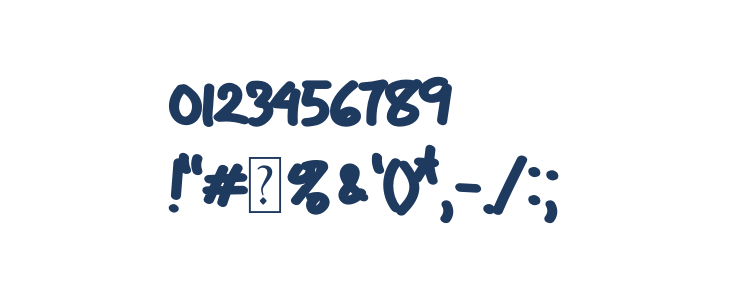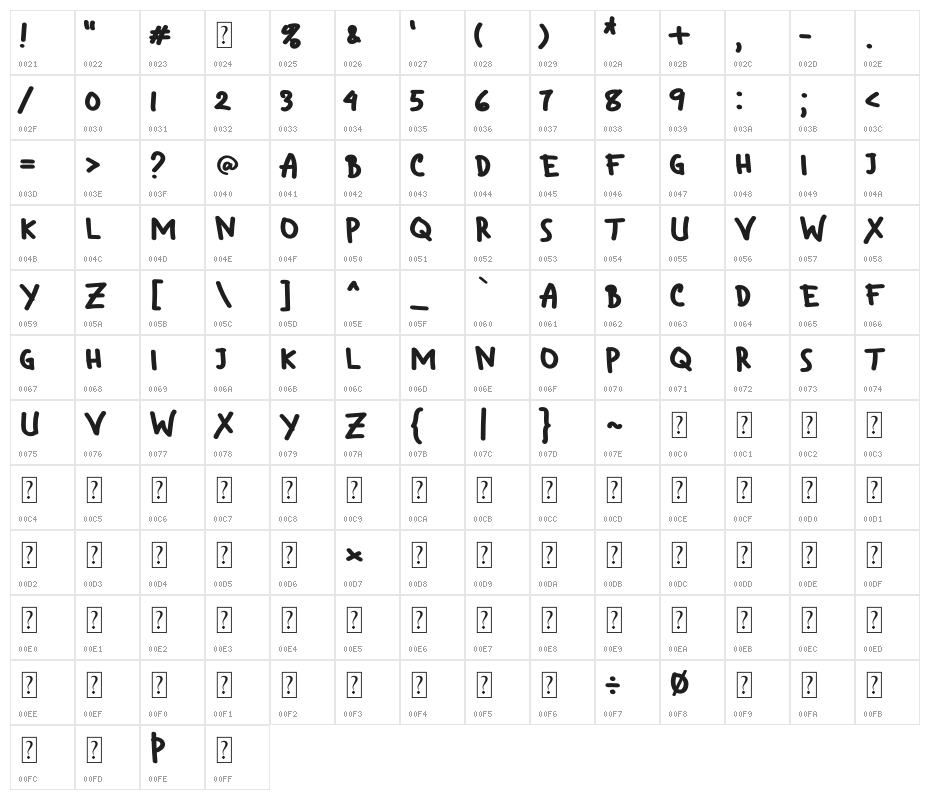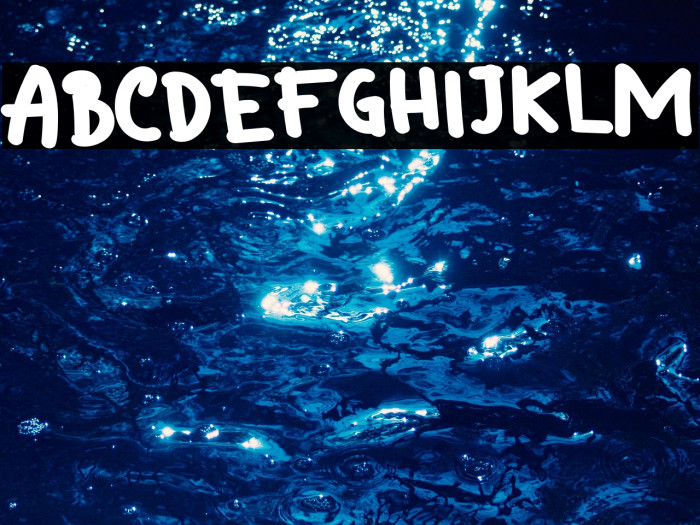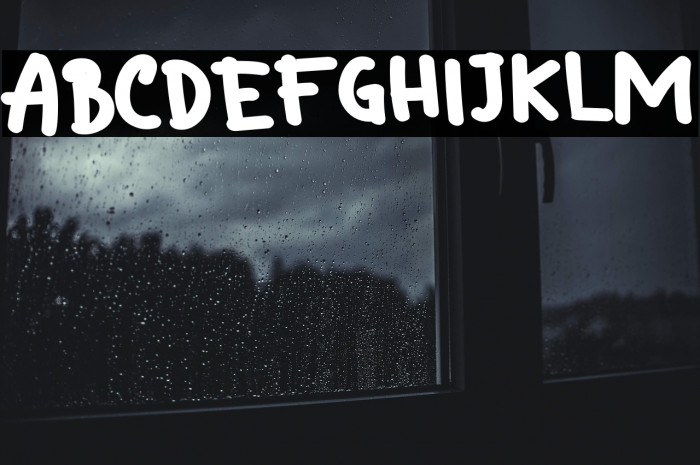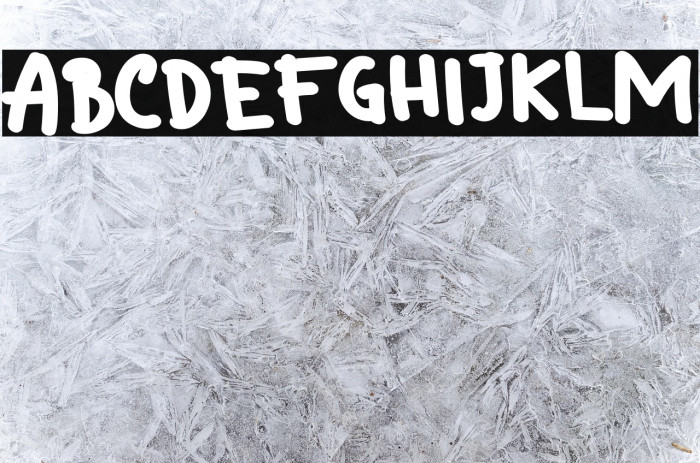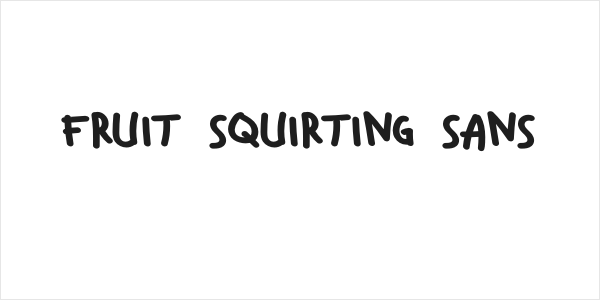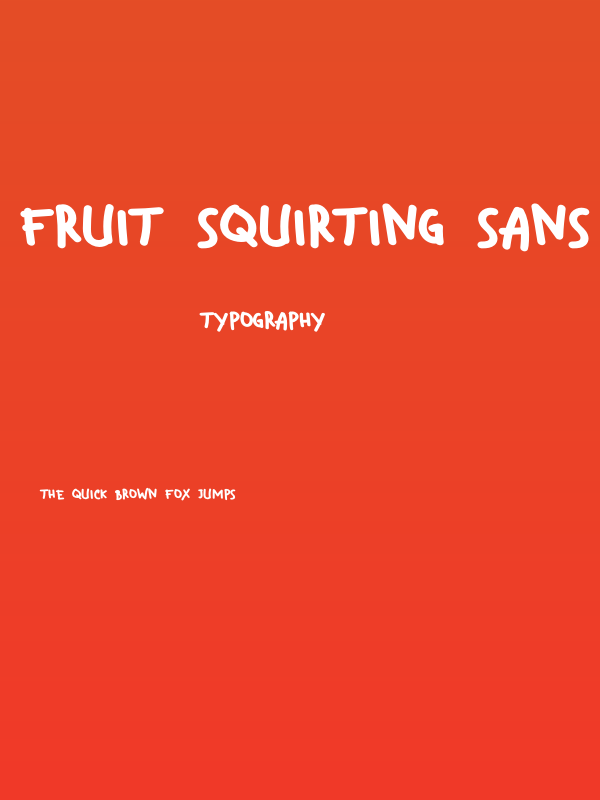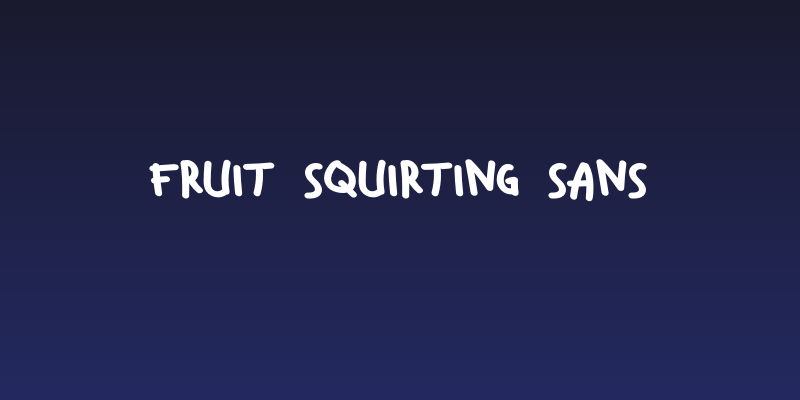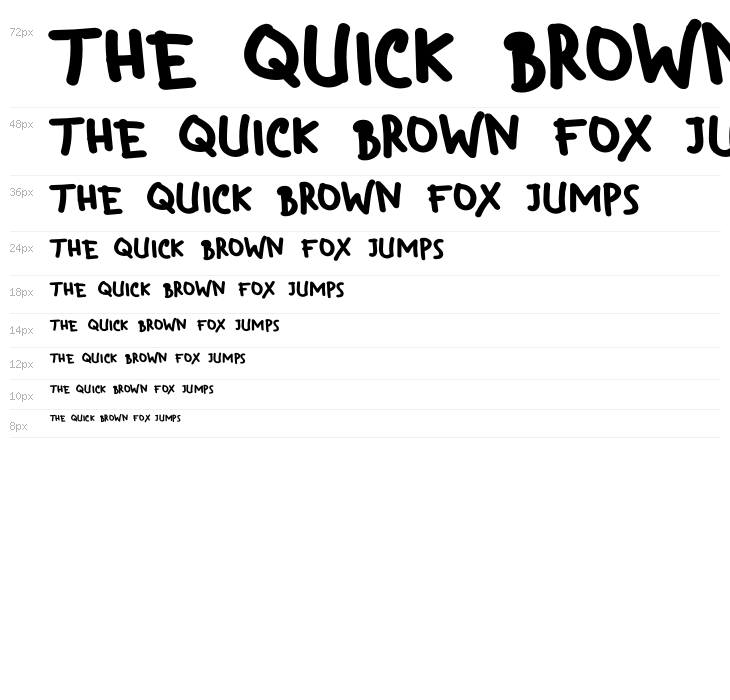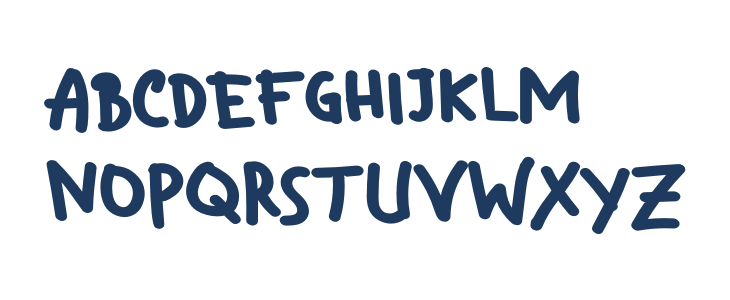
Fruit Squirting Sans Font
Fruit Squirting Sans Description
This playful and energetic font features bold, rounded characters with a hand-drawn aesthetic. The letters have a slightly irregular shape, adding to their whimsical charm. The strokes are thick and consistent, giving the font a strong presence. The overall style is casual and friendly, making it suitable for projects that aim to convey a sense of fun and creativity. The numbers and special characters maintain the same lively style, ensuring a cohesive look across all text elements.
| Proposed Projects | Ideal for children's books, playful branding, casual invitations, and creative posters. |